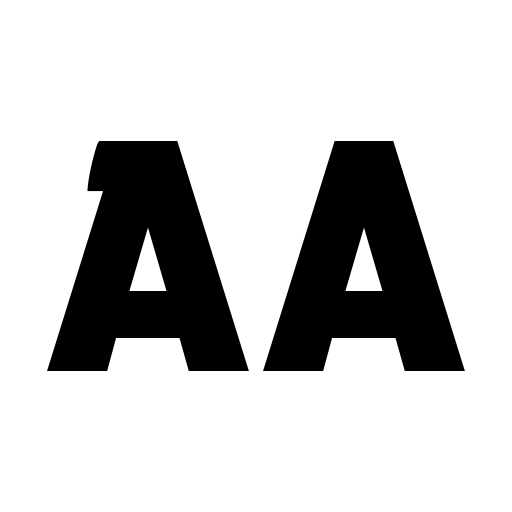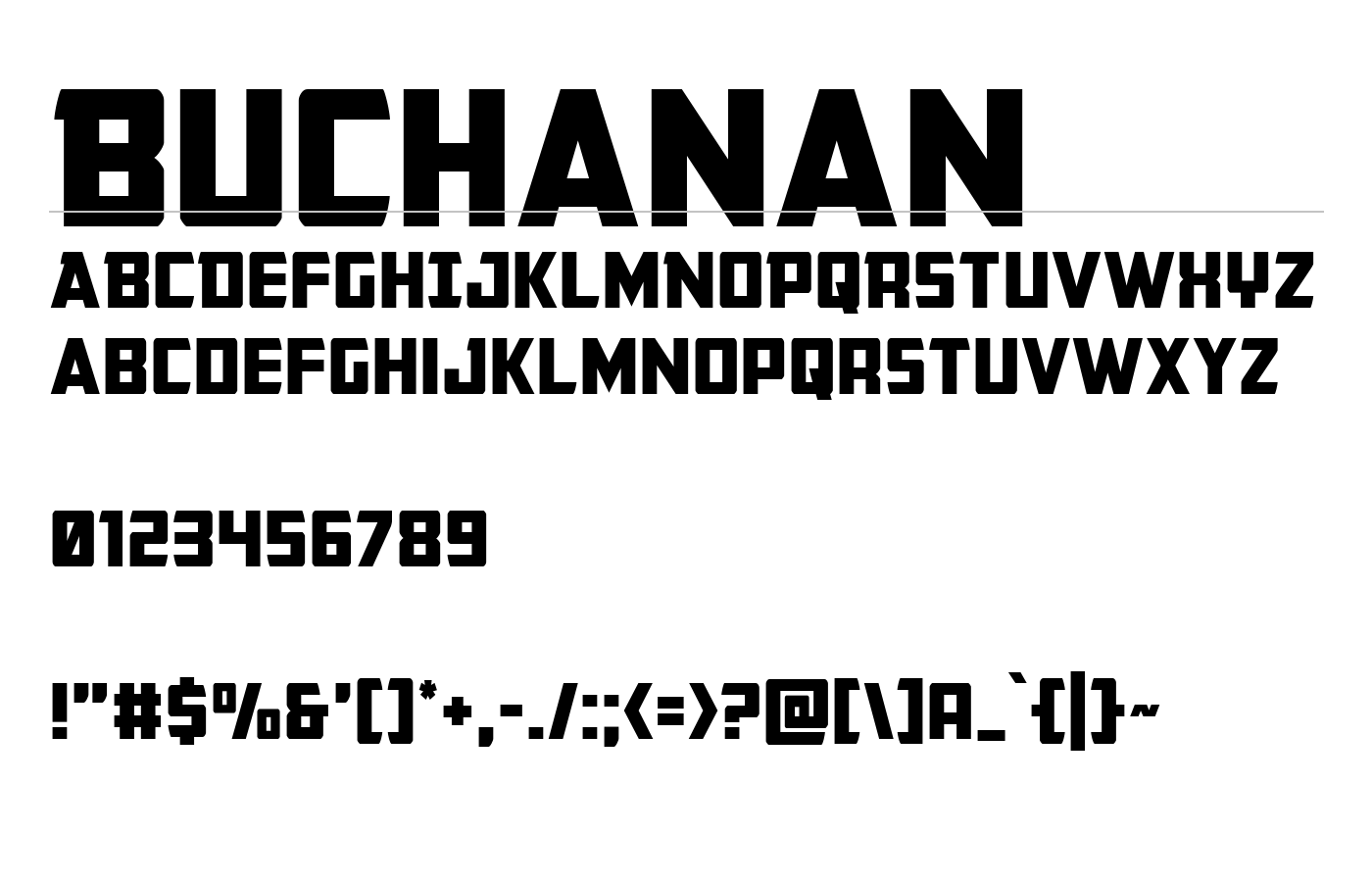
Buchanan is a bold, condensed sans serif font with a strong, geometric structure and sharp edges that convey power and confidence. Its high-impact style and blocky letterforms make it ideal for headlines, logos, and branding where a modern, commanding presence is needed. This font works especially well for sports, technology, and poster designs that seek a bold and dynamic look.
Buchanan Font
About Buchanan Font